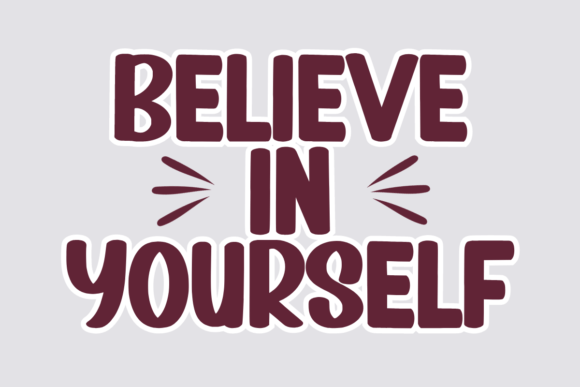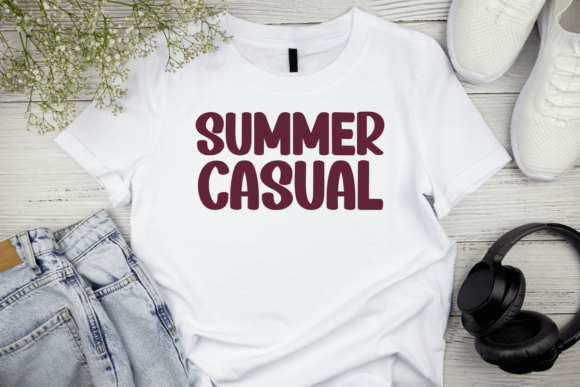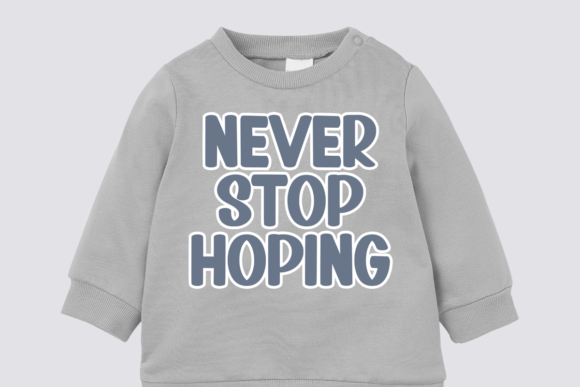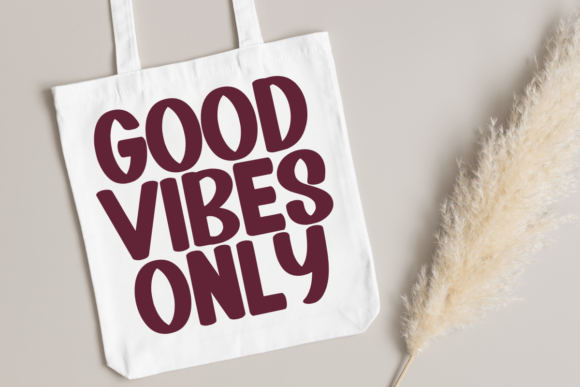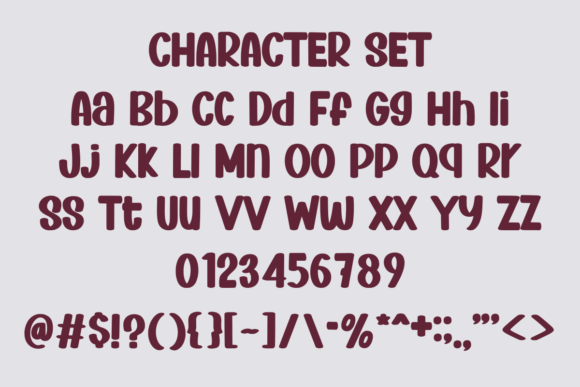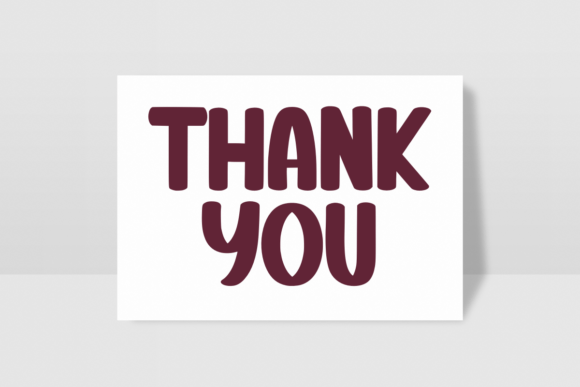
Introducing Funny Child Font: The Ultimate Display Font for Creative Projects
Are you tired of using the same old boring fonts for your creative projects? Look no further! Funny Child Font is here to add a touch of whimsy and fun to your designs. This quirky display font is perfect for a wide range of applications, from printing and books to titles, headlines, weddings, quotes, photography, decoration, branding, logos, and more.
What Makes Funny Child Font So Special?
Funny Child Font is a unique and playful font that is sure to capture the attention of your audience. Its fun and quirky design makes it perfect for projects that require a lighthearted and humorous touch. Whether you’re designing a children’s book, creating a logo for a kids’ party business, or simply want to add some personality to your social media graphics, Funny Child Font is the perfect choice.
Key Features of Funny Child Font
- Fun and quirky design: Funny Child Font has a unique and playful design that is sure to stand out.
- Display font: This font is specifically designed as a display font, making it perfect for titles, headlines, and other attention-grabbing applications.
- Versatile: Funny Child Font can be used for a wide range of creative projects, from printing and books to branding and logos.
- Easy to read: Despite its playful design, Funny Child Font is easy to read, making it perfect for use in titles, headings, and other applications where readability is important.
Use Cases for Funny Child Font
Funny Child Font is a versatile font that can be used for a wide range of creative projects. Here are some ideas to get you started:
- Children’s books: Add a touch of whimsy to your children’s book with Funny Child Font.
- Wedding invitations: Use Funny Child Font to create playful and unique wedding invitations.
- Logos and branding: Create a fun and memorable logo for your business with Funny Child Font.
- Social media graphics: Add some personality to your social media graphics with Funny Child Font.
- Photography: Use Funny Child Font to create beautiful and eye-catching photo titles and captions.
Tips for Using Funny Child Font
Here are some tips for getting the most out of Funny Child Font:
- Use it sparingly: Funny Child Font is a display font, so it’s best to use it sparingly to add emphasis and attention to specific parts of your design.
- Pair it with other fonts: Combine Funny Child Font with other fonts to create a unique and visually appealing design.
- Experiment with colors: Have fun with different colors and textures to add depth and interest to your design.
Funny Child Font is a fun and quirky display font that is perfect for adding a touch of whimsy to your creative projects. With its unique design, versatility, and ease of use, it’s the perfect choice for designers and crafters looking to add some personality to their work. So why not give it a try and see what kind of creative projects you can come up with?
Whether you’re a professional designer or a crafty DIY enthusiast, Funny Child Font is sure to inspire your creativity and help you create unique and eye-catching designs. So go ahead, get creative, and have fun with Funny Child Font!